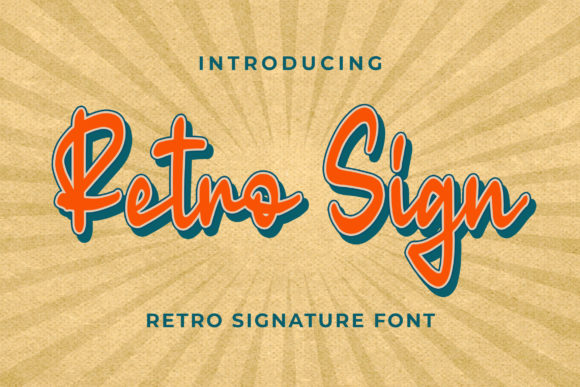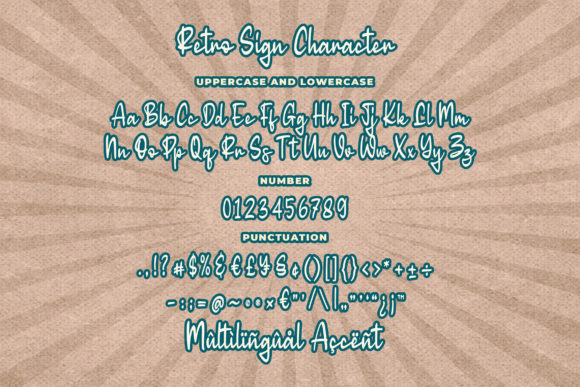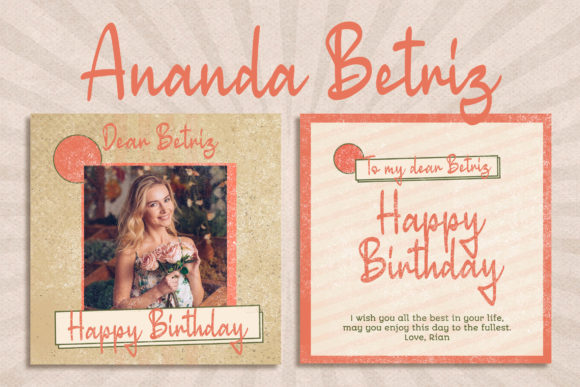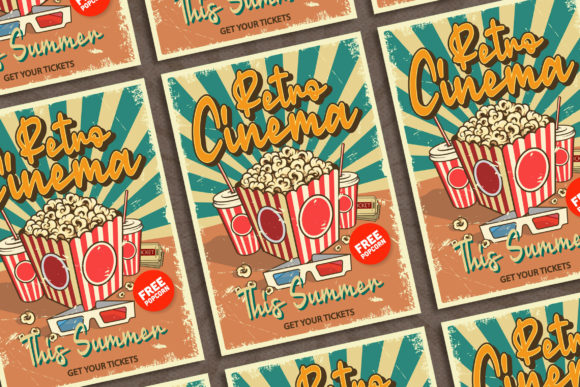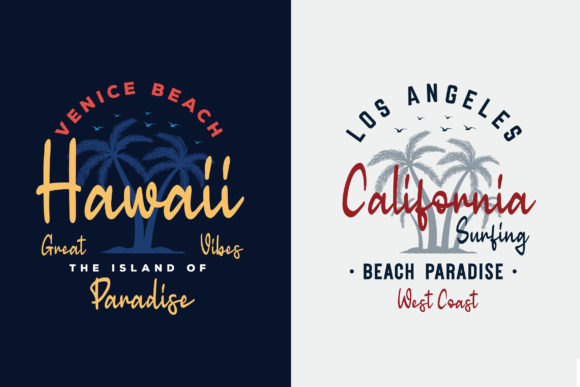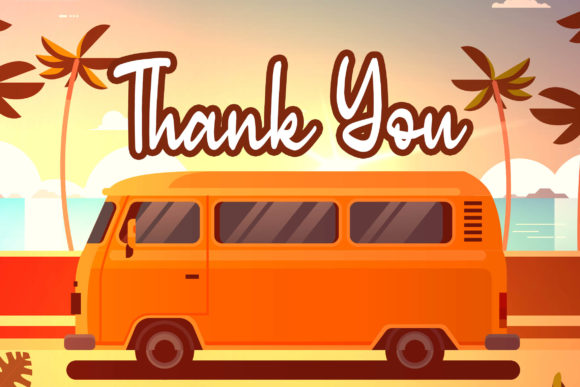
Retro Sign Font
About Retro Sign Font
Retro Sign feels playfully nostalgic and delivers an incredible vintage aesthetic. It will elevate a wide range of design projects to the highest level, be it branding, headings, wedding designs, invitations, signatures, logos, labels, and much more!